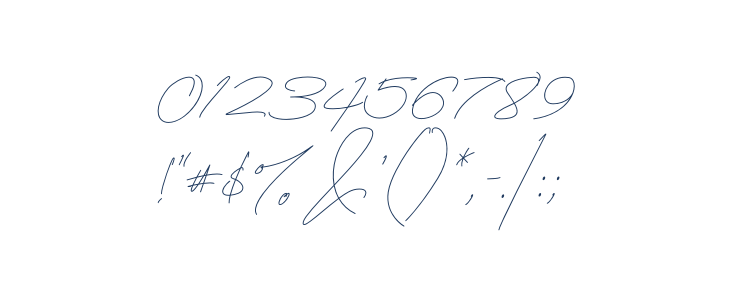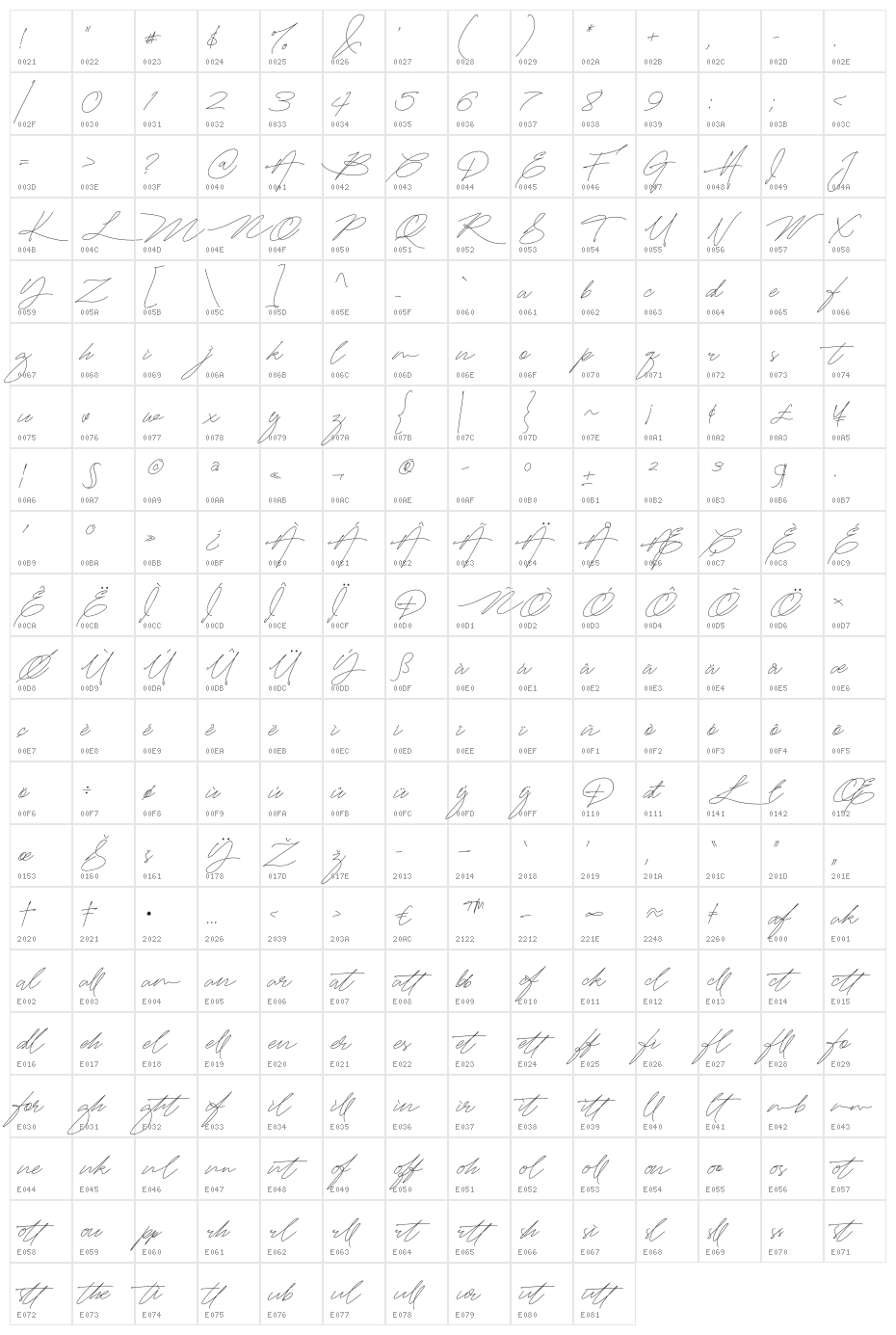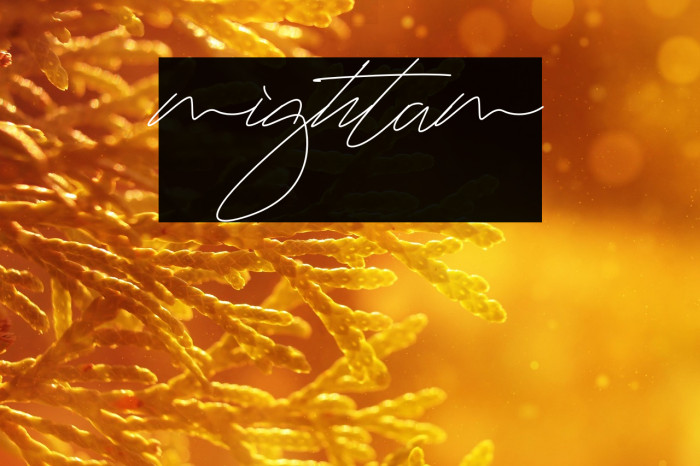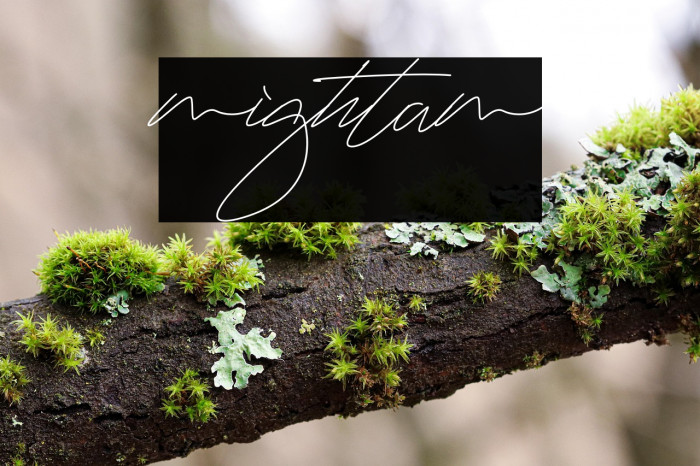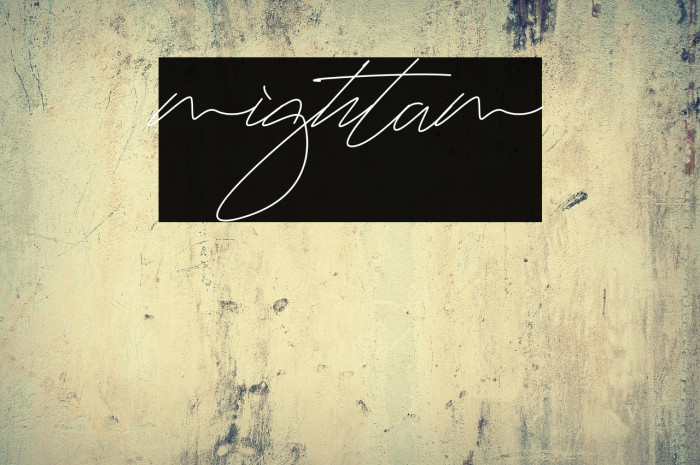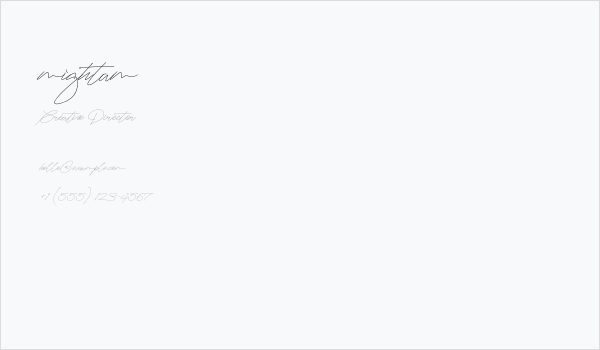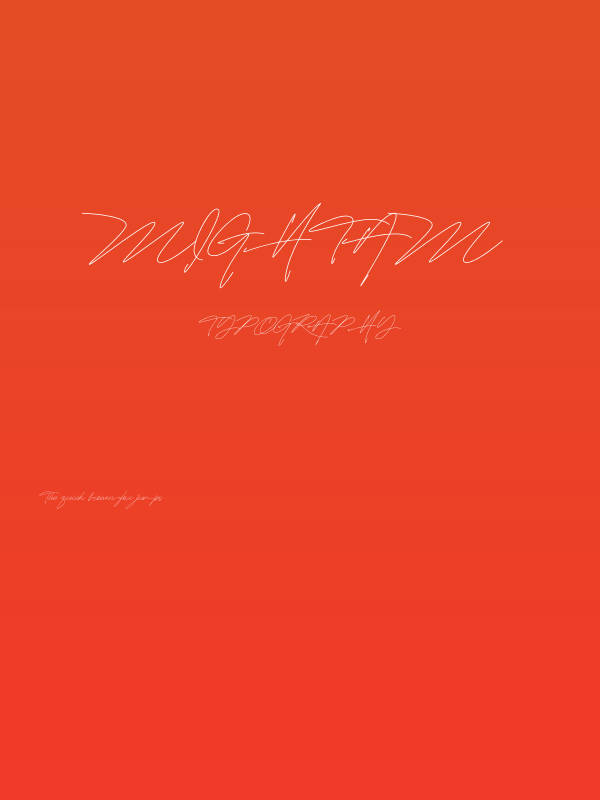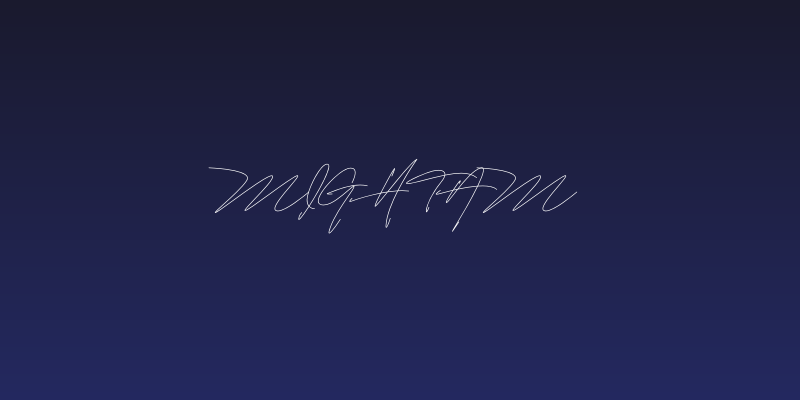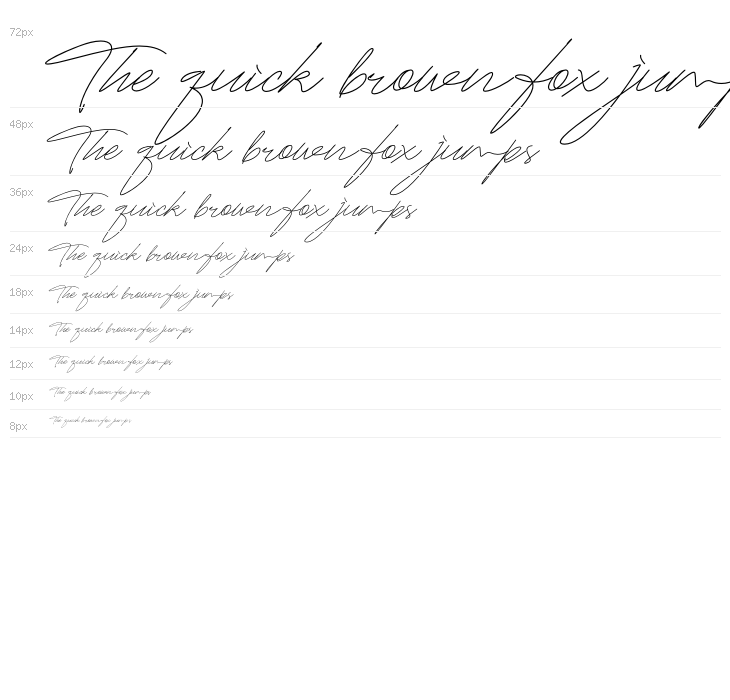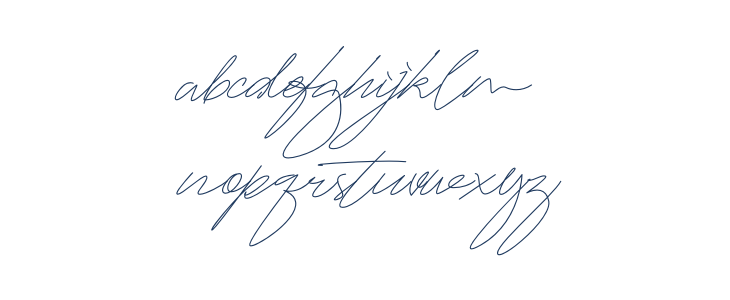
mightam Font
mightam Description
This font exudes a sophisticated and elegant style, characterized by its flowing, cursive script that mimics natural handwriting. The letters are interconnected with smooth, sweeping strokes, giving it a fluid and dynamic appearance. The uppercase letters are particularly ornate, with exaggerated loops and flourishes that add a touch of drama and flair. The lowercase letters maintain a consistent rhythm, enhancing readability while retaining an artistic flair. The numerals and special characters are designed to complement the overall aesthetic, ensuring a cohesive look across all text. This font is ideal for projects that require a personal, handwritten touch, such as invitations, greeting cards, or branding materials.
| Overall Style | Elegant |
| Use Case | Logos, Invitations, Personal Branding |
| Proposed Projects | Ideal for wedding invitations, personal branding, greeting cards, and elegant stationery. |